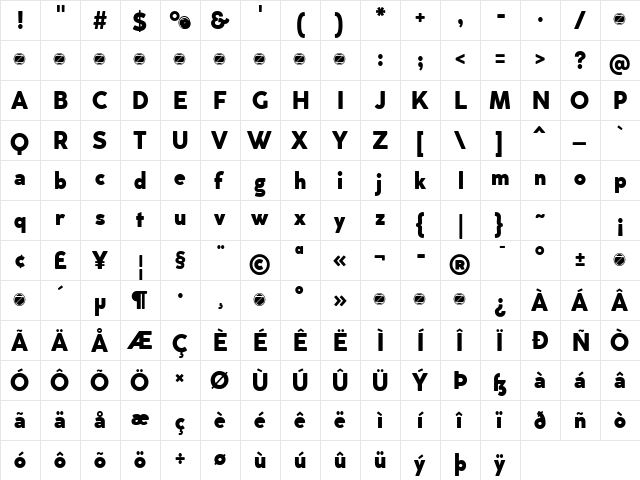
Cocogoose Classic Trial ExtraBold
| Foundry | Zetafonts |
| Designer | Cosimo Lorenzo Pancini, Francesco Canovaro |
Design Context for Cocogoose Classic Trial Typeface
Cocogoose Classic Trial wears its vintage influences proudly, with letterforms that recall mid-century signage, classic packaging, and nostalgia-driven design. The heavy weight commands attention and anchors typographic hierarchies.
Ideal for diner signage, record shop branding, 70s/80s-themed projects, and heritage product labels.
Font Pairing: Combine Cocogoose Classic Trial with a simple slab or neutral sans — period-accurate companions reinforce the vintage feel without competing for attention.
Pro Tip: Lean into Cocogoose Classic Trial's period character by pairing it with aged paper textures, muted colour palettes, and vintage illustration styles.